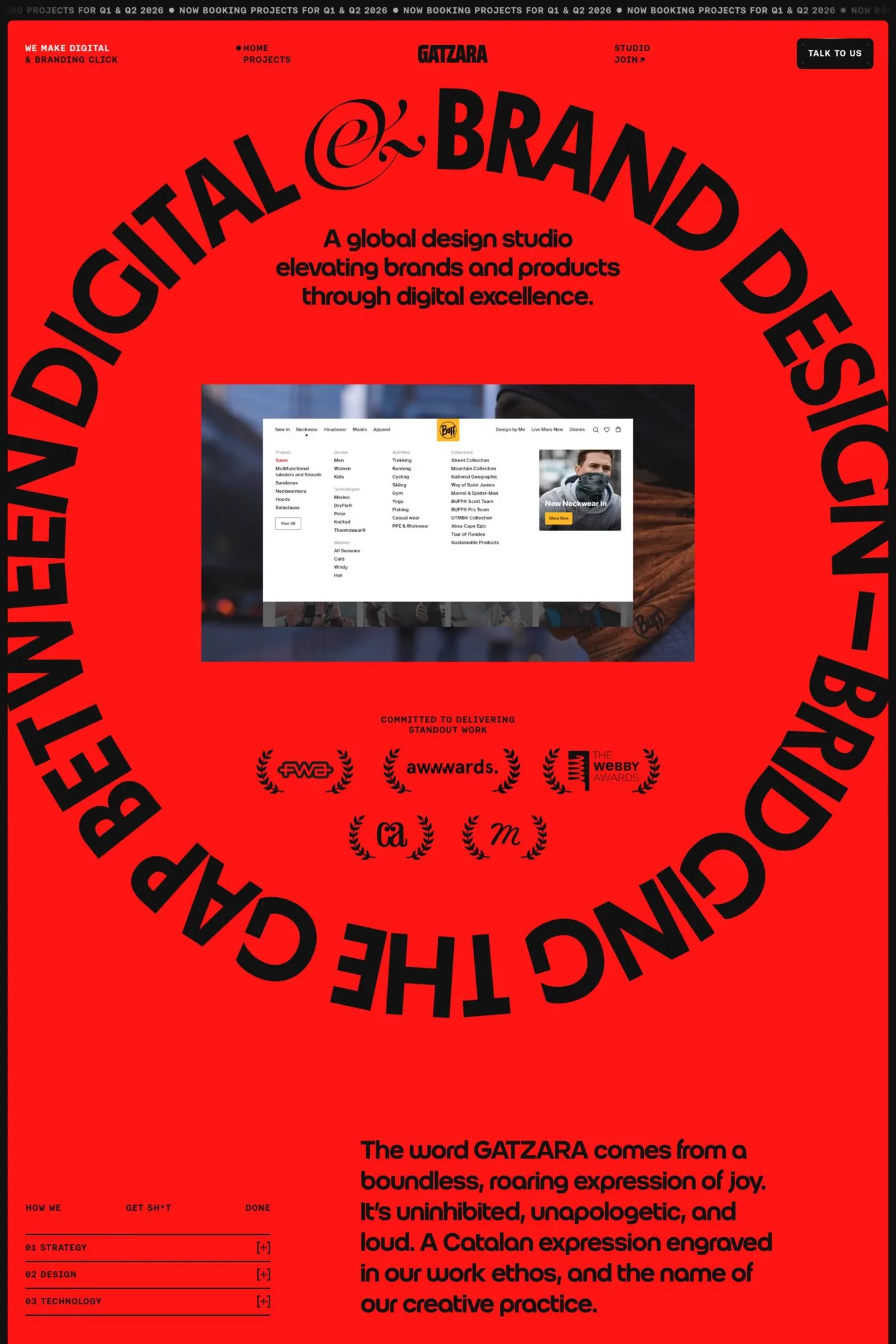
The spark for Roko was the Afrodite logo by Herb Lubalin. The tight letter spacing and geo-sans goodness of this style was the temptation to try and draw Nuform in it.